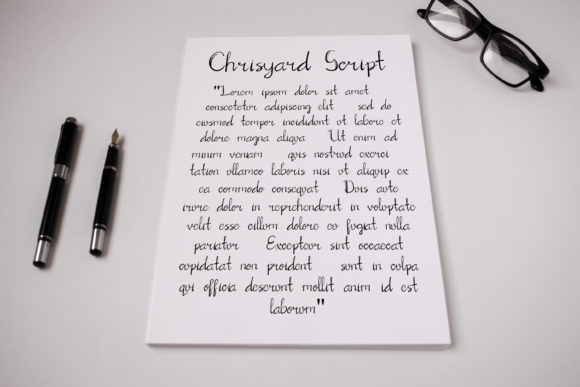
Introducing the Elegant Chrisyard Script Font
The Chrisyard Script Font is a timeless and sophisticated typeface that exudes luxury and refinement. With its beautiful, elegant style, this classic font script is perfect for designers and crafters looking to add a touch of high-end sophistication to their designs.
A Brief Overview of Chrisyard Script Font
The Chrisyard Script Font is a script typeface that features flowing, connected letters that create a sense of fluidity and continuity. Its elegant lines and curves make it an ideal choice for designs that require a touch of luxury, sophistication, and refinement. Whether you’re working on a branding project, a wedding invitation, or a packaging design, the Chrisyard Script Font is sure to impress.
Key Features of Chrisyard Script Font
- Elegant and Sophisticated: The Chrisyard Script Font boasts a beautiful, elegant style that is perfect for designs that require a touch of luxury and refinement.
- Classic Script Style: This font script features a classic, timeless design that is reminiscent of traditional calligraphy.
- Flowing Connections: The Chrisyard Script Font features flowing, connected letters that create a sense of fluidity and continuity.
- Highly Versatile: This font script is highly versatile and can be used for a wide range of design projects, from branding and advertising to packaging and wedding invitations.
Uses of Chrisyard Script Font
The Chrisyard Script Font is a highly versatile typeface that can be used for a wide range of design projects. Here are some of the most popular uses of this elegant font script:
- Branding and Logo Design: The Chrisyard Script Font is perfect for creating luxury brand identities and logos that require a touch of sophistication and refinement.
- Wedding Invitations and Stationery: This elegant font script is ideal for designing wedding invitations, stationery, and other paper goods that require a touch of luxury and romance.
- Packaging Design: The Chrisyard Script Font can be used to create luxurious packaging designs that stand out on store shelves.
- Advertising and Marketing: This font script can be used to create eye-catching advertising and marketing materials that require a touch of sophistication and elegance.
Tips for Using Chrisyard Script Font
Here are some tips for using the Chrisyard Script Font in your designs:
- Use it Sparingly: Because of its elegant and sophisticated style, it’s best to use the Chrisyard Script Font sparingly to avoid overwhelming your design.
- Pair it with a Sans-Serif Font: Pairing the Chrisyard Script Font with a sans-serif font can create a beautiful contrast that adds visual interest to your design.
- Experiment with Font Sizes: Experimenting with different font sizes can help you create a hierarchy of information and add visual interest to your design.
In conclusion, the Chrisyard Script Font is a classic and elegant typeface that is perfect for designers and crafters looking to add a touch of luxury and sophistication to their designs. With its beautiful, flowing connections and timeless style, this font script is highly versatile and can be used for a wide range of design projects. Whether you’re working on a branding project, a wedding invitation, or a packaging design, the Chrisyard Script Font is sure to impress.
Overall, the Chrisyard Script Font is a beautiful and elegant typeface that can add a touch of luxury and sophistication to your designs. Its classic style and flowing connections make it a timeless choice that will never go out of style.